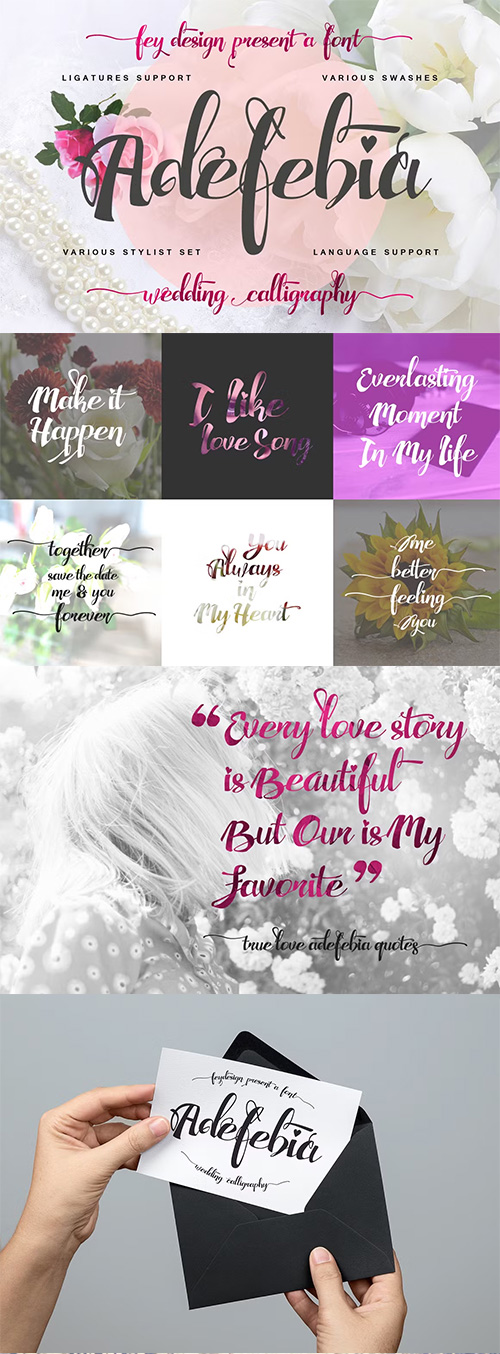
Adefebia Wedding Script Font 389122
Standard Ligatures, Stylistic Set, Multilanguage Characters
Modern Calligraphy Typeface | Unique style fonts
Suitable for design, element design, wedding, event, t-shirt,
logo, badges, sticker, and awesome work, etc...
Adefebia Wedding Script Font
Suitable for design, element design, wedding, event, t-shirt, logo, badges, sticker, and awesome work, etc...
• Combination alternative ligature fonts
• Standard Ligatures, Stylistic Set, Multilanguage Characters
• Modern Calligraphy Typeface
• Unique style fonts